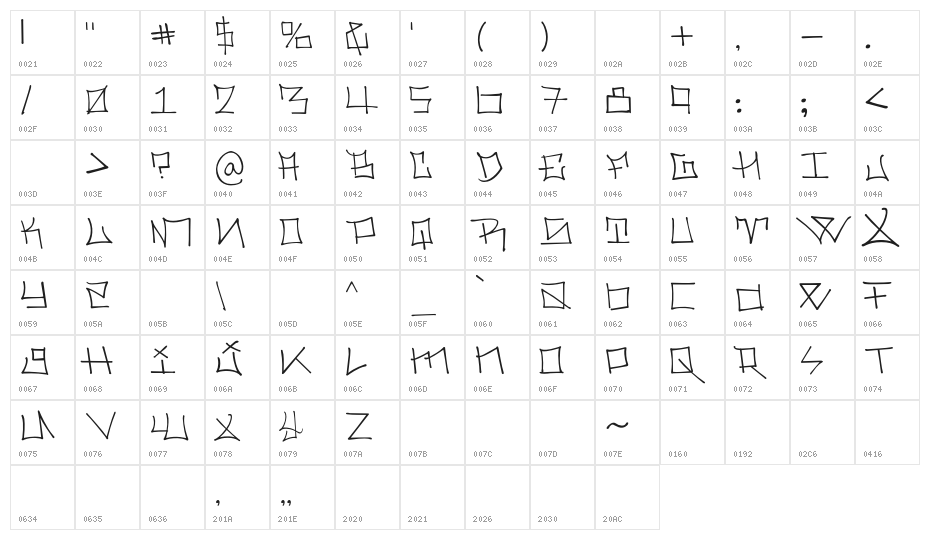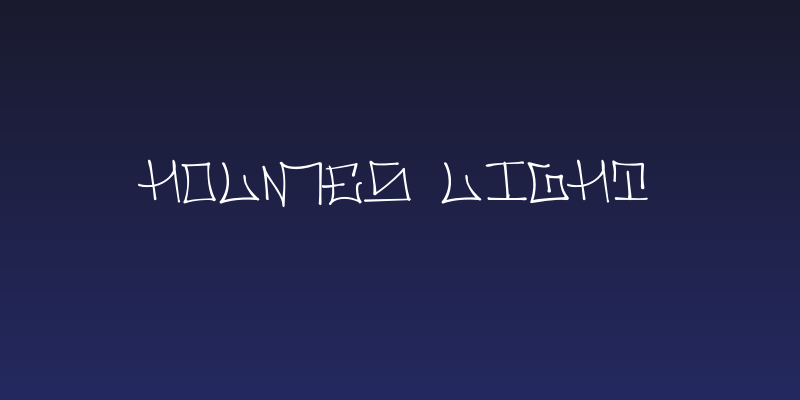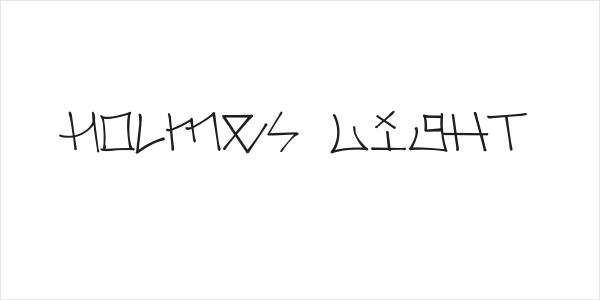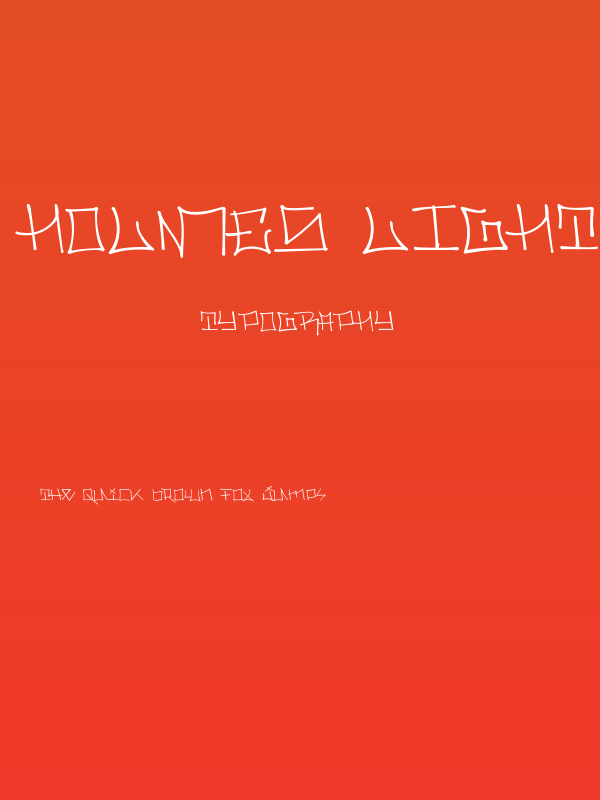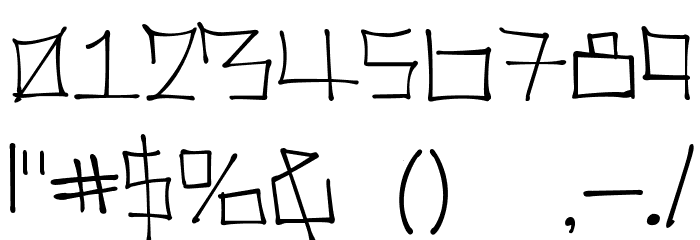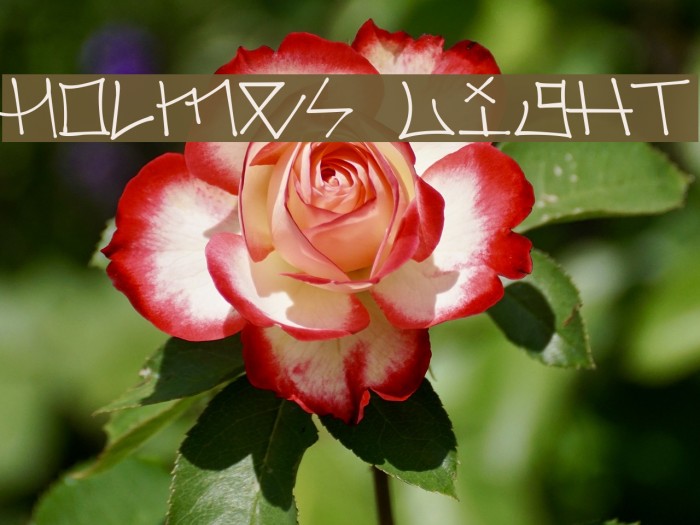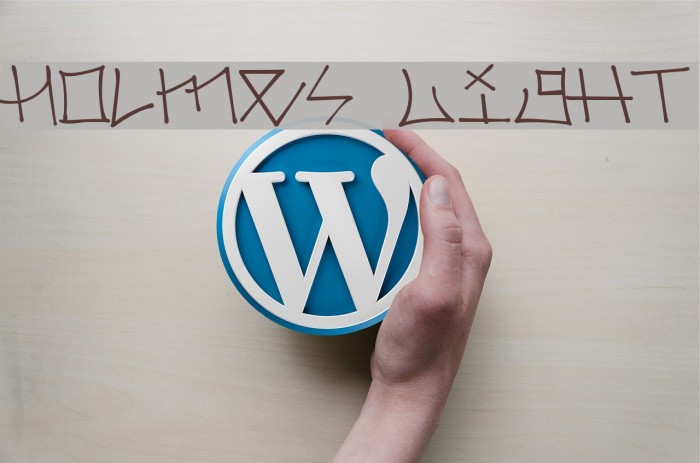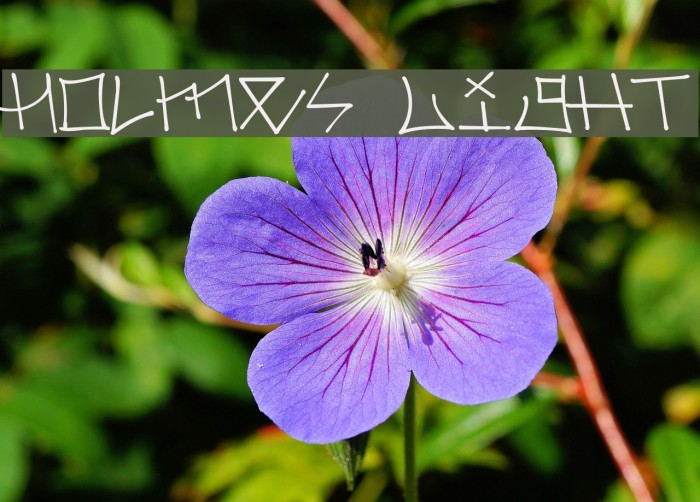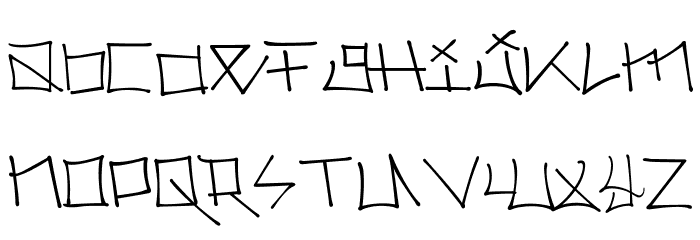
Holmes Light Font
Holmes Light Description
This font features a unique, hand-drawn style with an angular and geometric appearance. The characters are composed of straight lines and sharp angles, giving it a distinctive, edgy look. The uppercase and lowercase letters maintain a consistent style, with a playful yet structured form. Numbers and special characters follow the same design principles, ensuring a cohesive visual identity. The font's irregular strokes and varying line thickness contribute to its dynamic and artistic feel, making it suitable for creative and unconventional design projects.
| Proposed Projects | Ideal for artistic projects, album covers, posters, and branding that seeks a creative and unconventional look. |